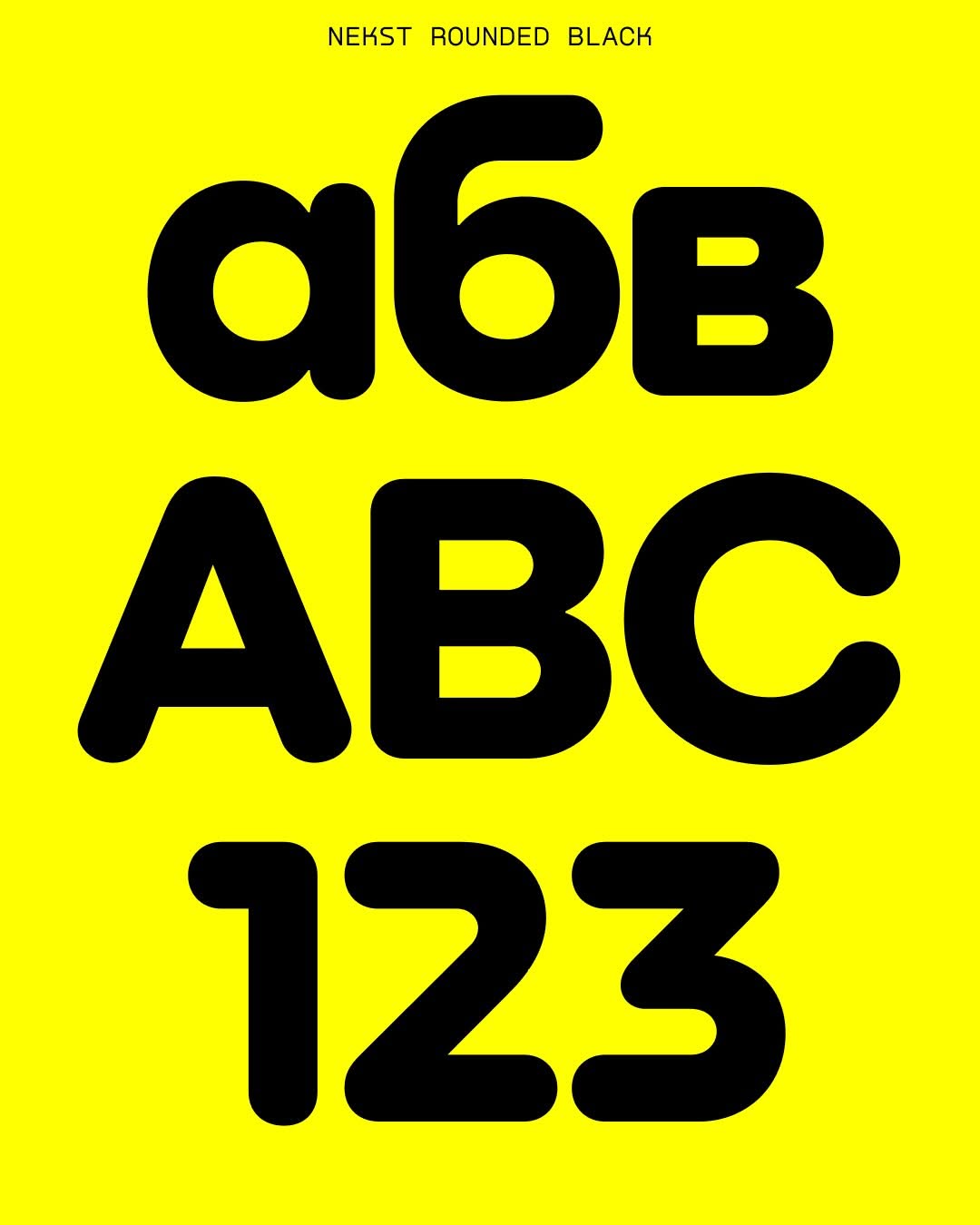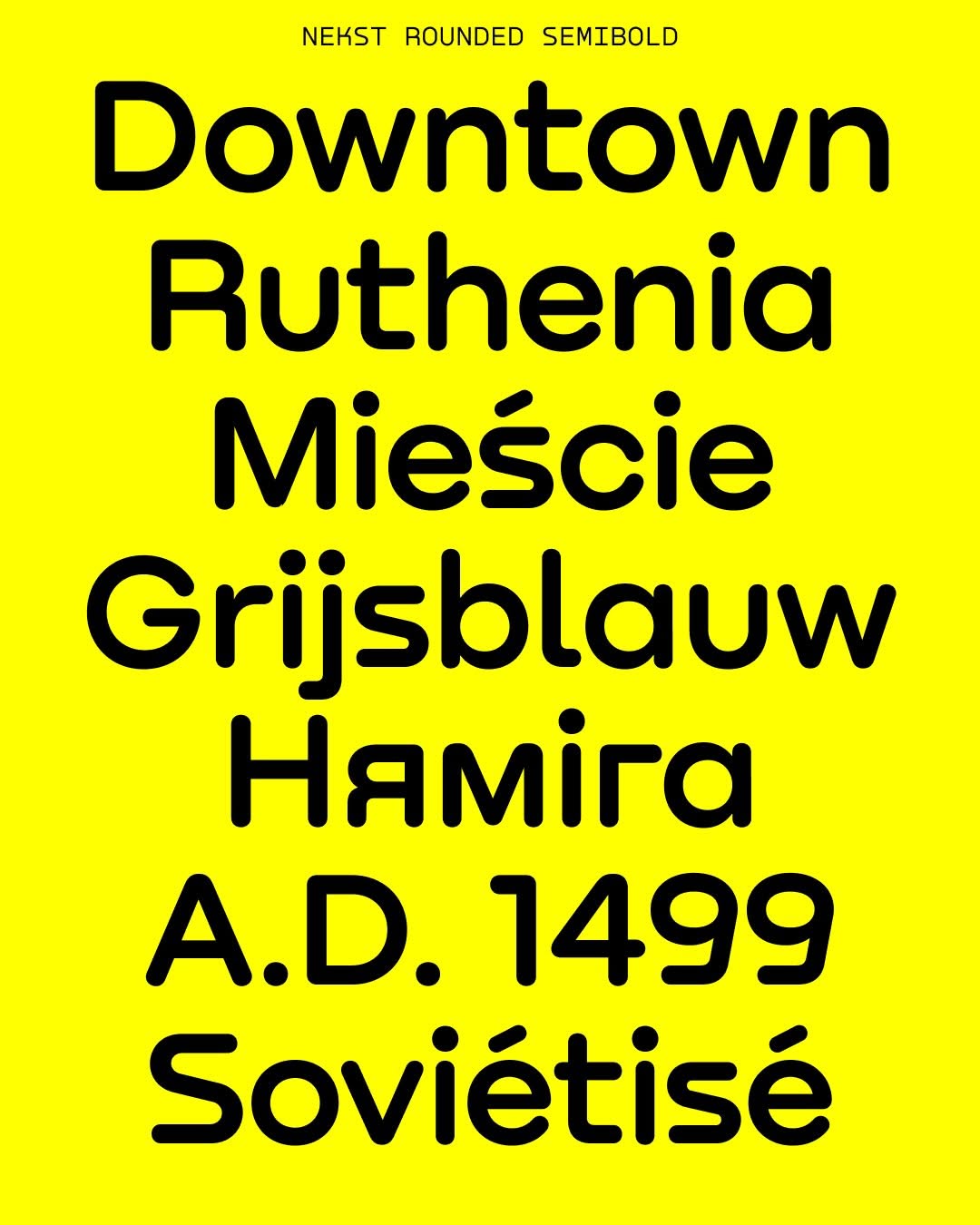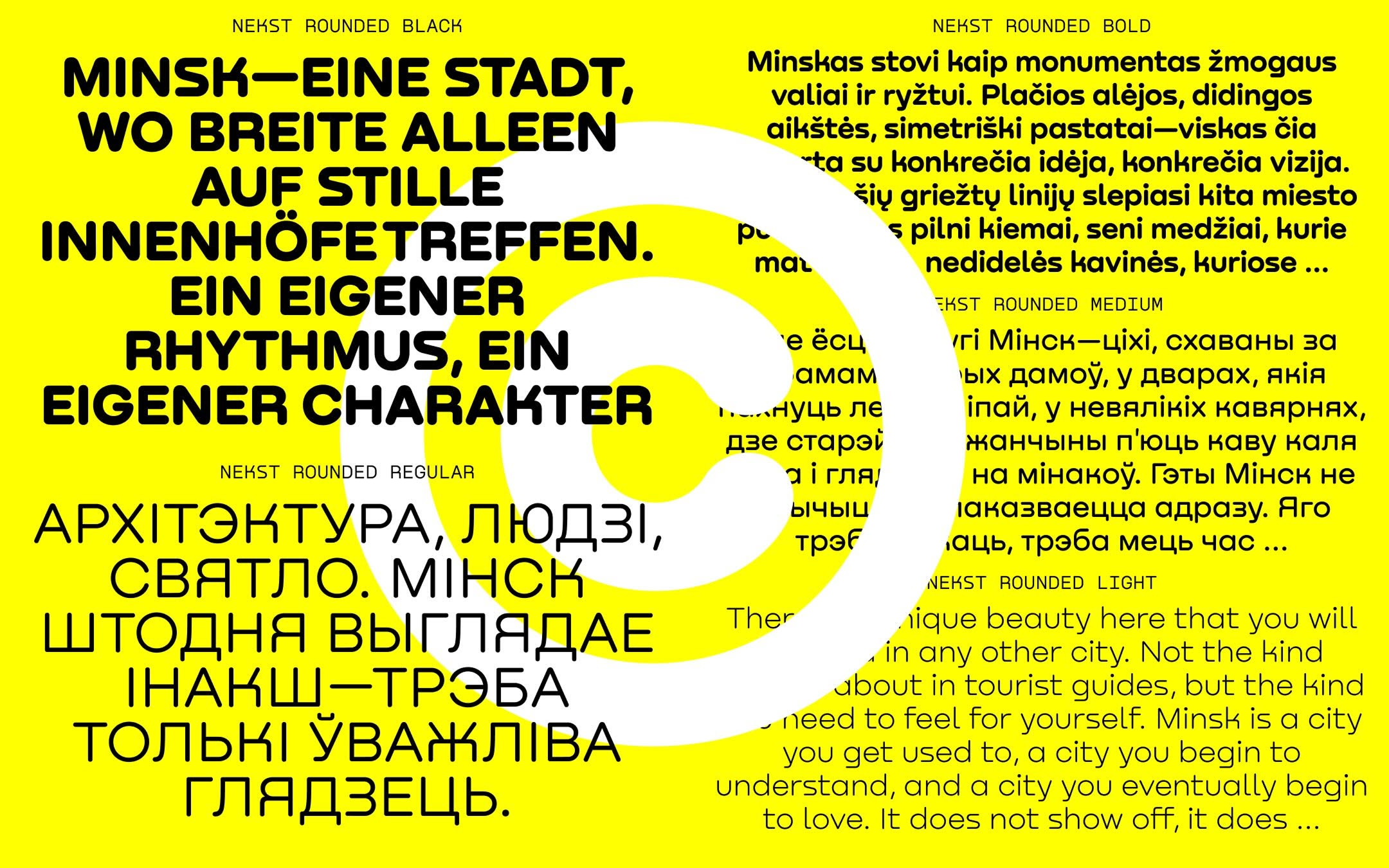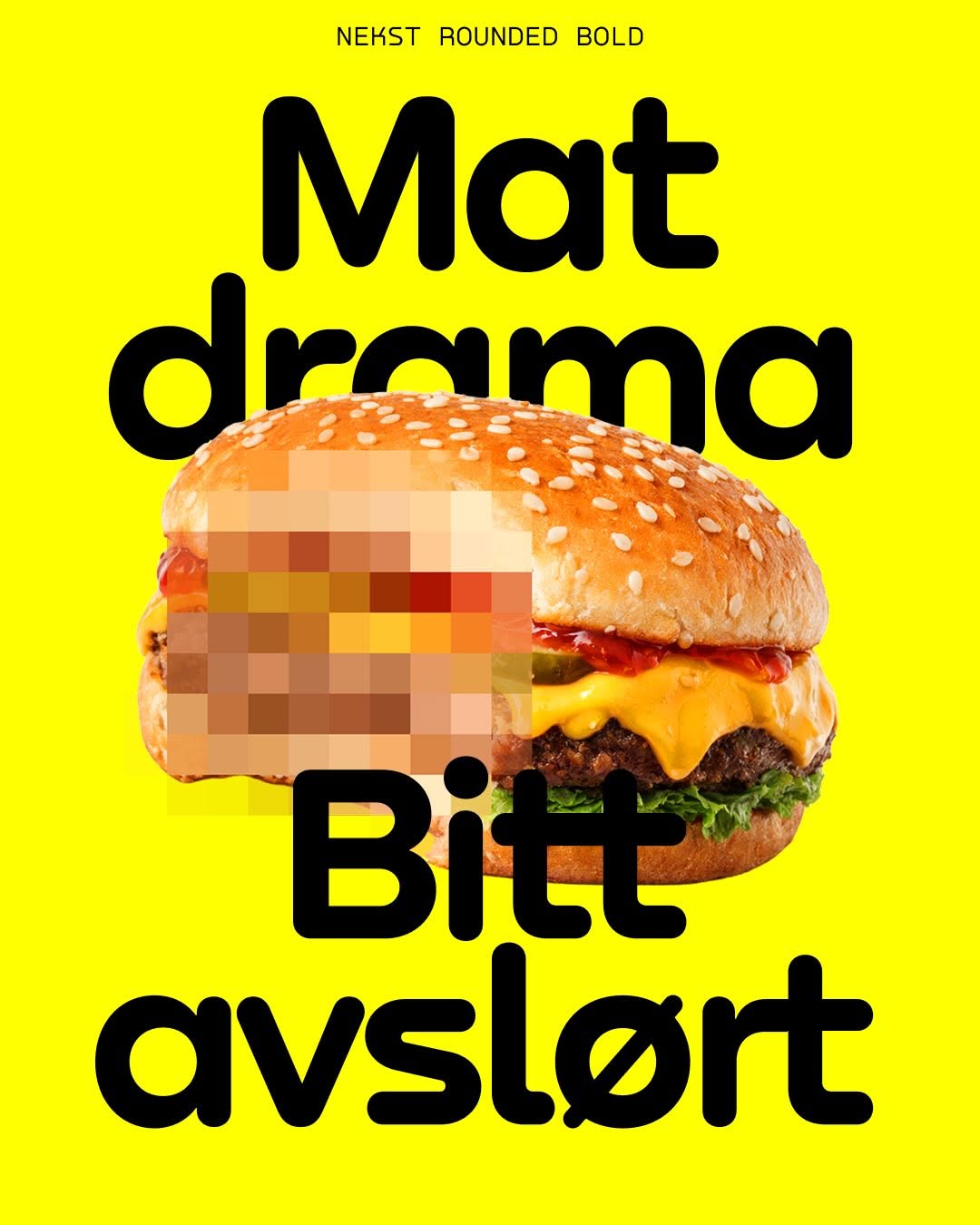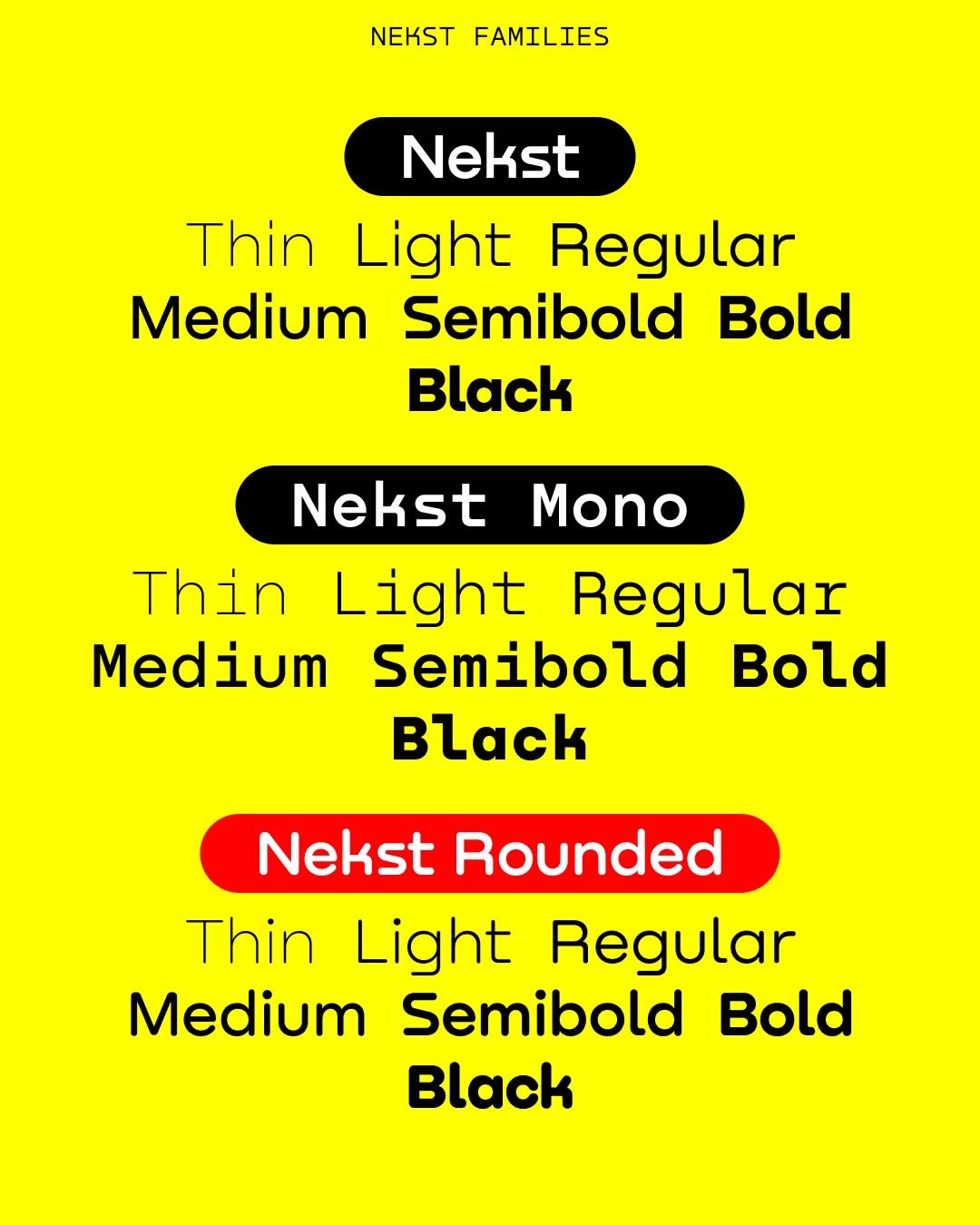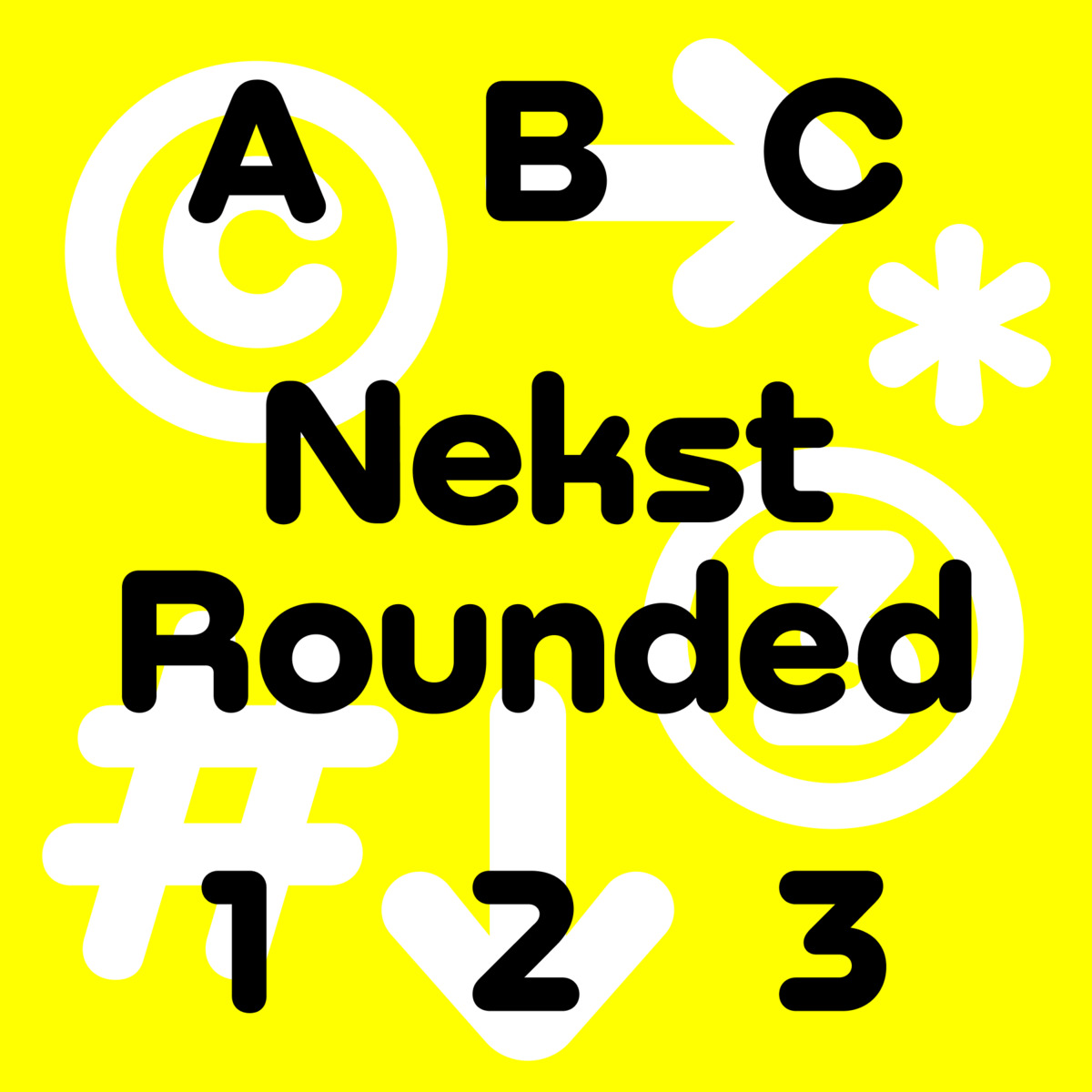
Nekst Rounded is Nekst that lost some of its austerity. Rounded stroke terminals soften the family’s brutal character, bringing in a friendly feel without sacrificing its strength. Nekst Rounded preserves Nekst’s geometric skeleton, Constructivist logic, and inner eccentricity, and inherits its weight
The typeface was created by a Minsk-based designer, Denis Serebryakov, whose projects have been awarded at the Granshan and Modern Cyrillic competitions. Denis is also the author of Displace, Taler, and Gik from our library.